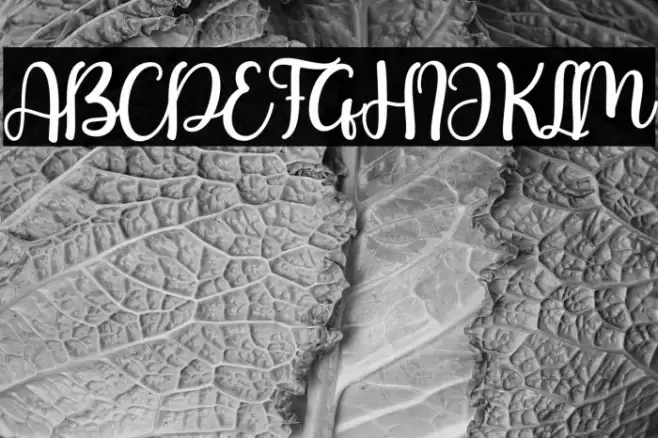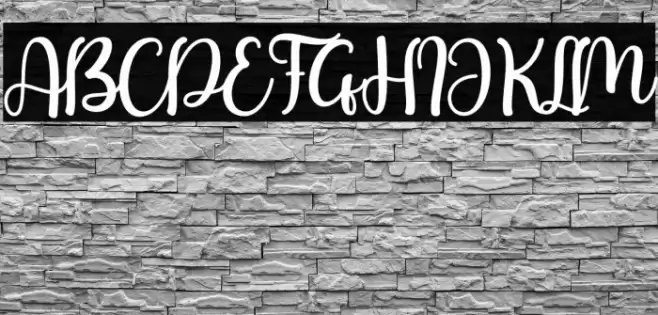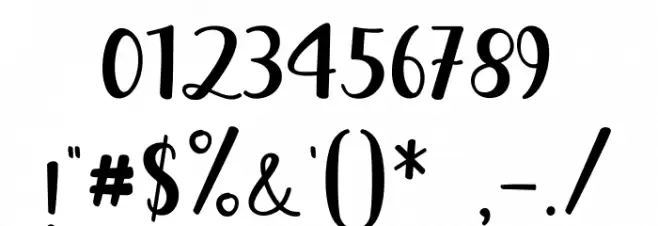
Valentday Font
Valentday Description
This font features a playful and elegant script style with a handwritten appearance. The uppercase letters are bold and flowing, with a slight slant that adds a dynamic feel. The lowercase letters maintain a consistent style, offering a smooth and connected look that enhances readability. Numbers and special characters are designed to match the overall aesthetic, providing a cohesive appearance across all elements. The font's strokes are moderately thick, offering a medium contrast that balances visibility and style. Its whimsical and friendly nature makes it suitable for a variety of creative projects.
A playful and elegant script font with a handwritten style from Uncategorized fonts.
- Font: Valentday
- Proposed Projects: Ideal for wedding invitations, greeting cards, branding, and social media graphics.
- Use Case: Logos, Headlines, Invitations